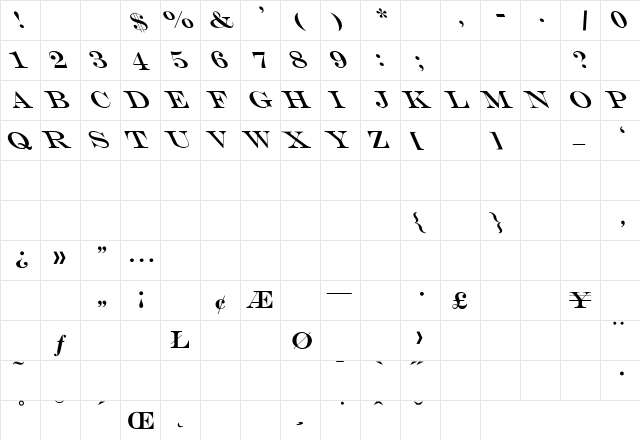
MEngravers-Size One Lefty Regular
Design Context for MEngravers-Size One Lefty Typeface
MEngravers-Size One Lefty takes a measured approach to typography — its balanced proportions and neutral character make it a reliable workhorse for both digital and print work.
Pro Tip: Use MEngravers-Size One Lefty in both headline and body roles to test its range before committing to a single application.